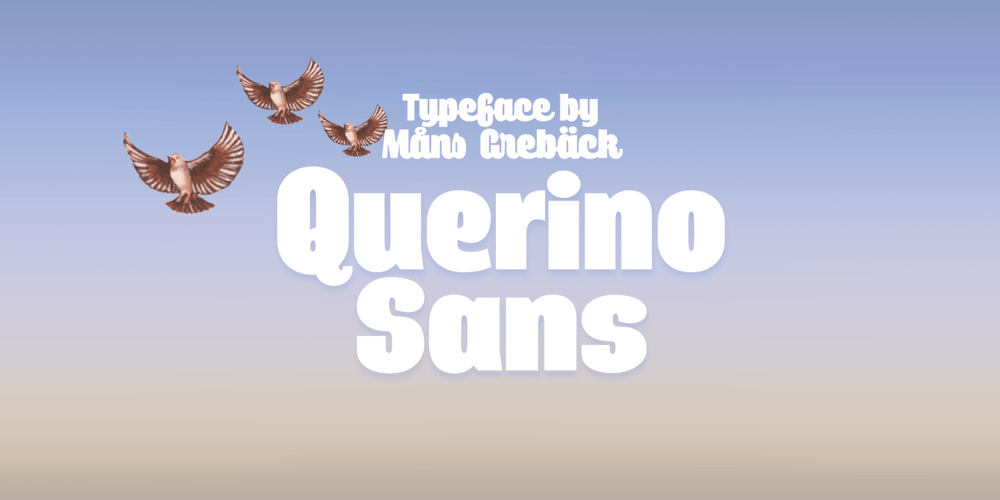
Querino Sans
Querino Sans font
Querino Sans Font Family was designed by Måns Grebäck and published by Mans Greback. Querino Sans contains 2 styles and family package options. Querino Sans is an extra-bold sans-serif font, created by Måns Grebäck during 2018 and 2019. It comes as a regular, upright version and as italic. The font is multilingual and has an extensive range of glyphs; it supports all Latin-based European languages, contains numbers as well as all symbols and characters you’ll ever need.